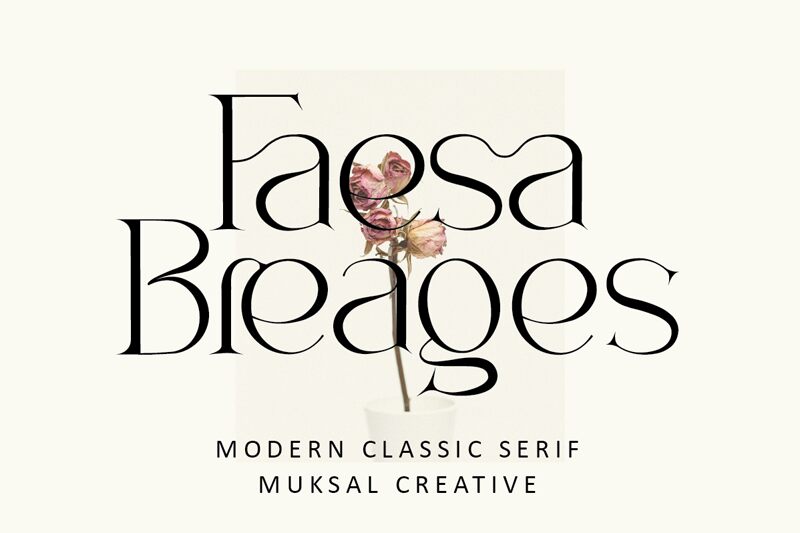
Faesa Breages
Introducing Faesa Breages, a modern classic serif font by Muksal Creative. Its light weight and sleek lines make it perfect for creating elegant logos, attractive web design elements, sophisticated print materials and high-end packaging.